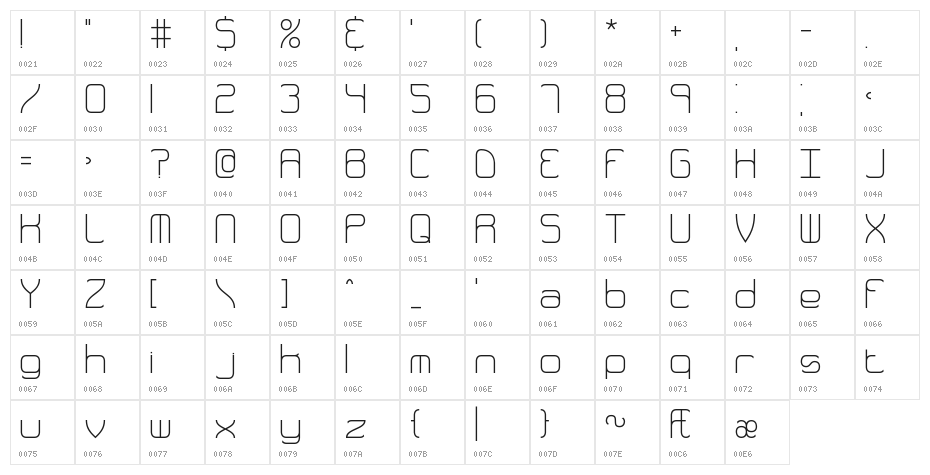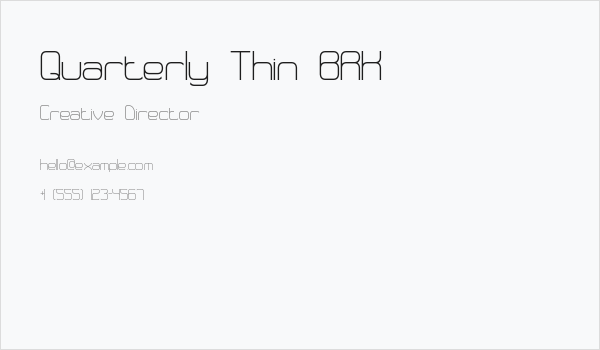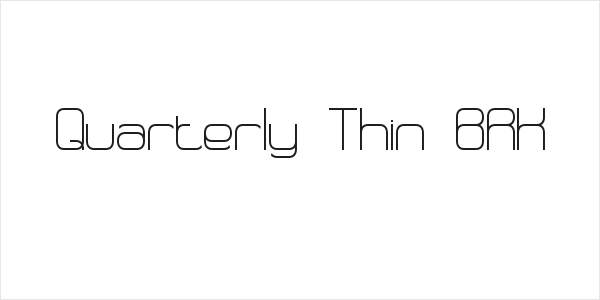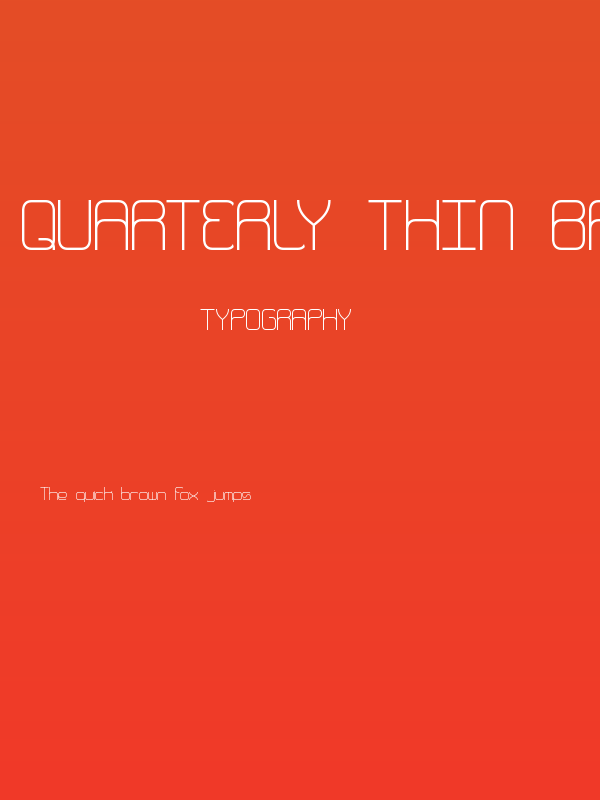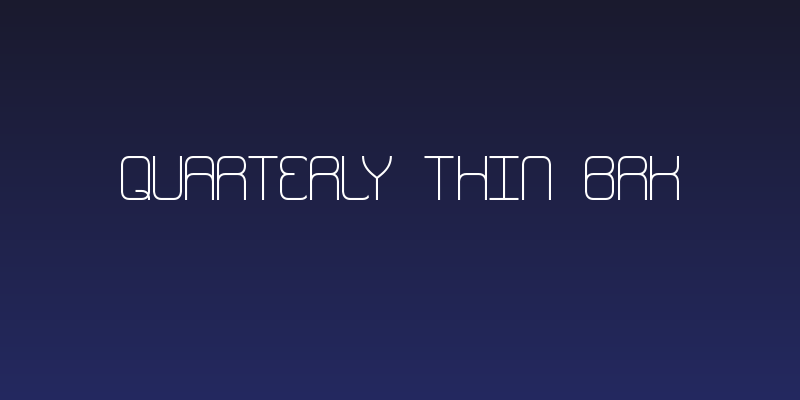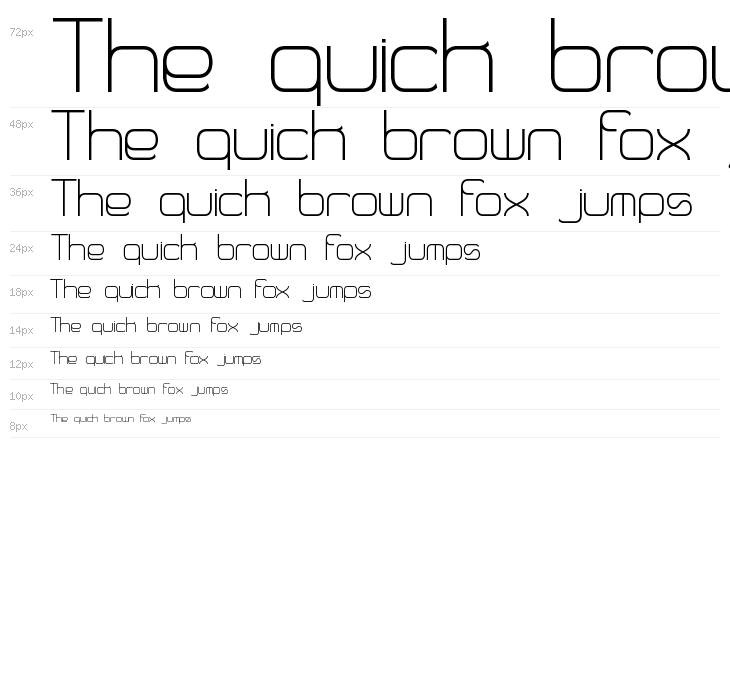
Quarterly Thin BRK Font
Quarterly Thin BRK Description
This font features a sleek, modern design with thin, geometric lines that create a clean and minimalist aesthetic. The characters are uniformly structured, with a consistent stroke width that gives a sense of balance and harmony. The uppercase and lowercase letters maintain a similar height, enhancing readability while retaining a unique style. The numerals and special characters are designed to match the overall geometric theme, providing a cohesive look across all elements. This font's simplicity and elegance make it suitable for contemporary design projects.
| Use Case | Headlines, Logos, Digital interfaces |
| Proposed Projects | Ideal for modern branding, tech-related designs, minimalist posters, and digital interfaces. |